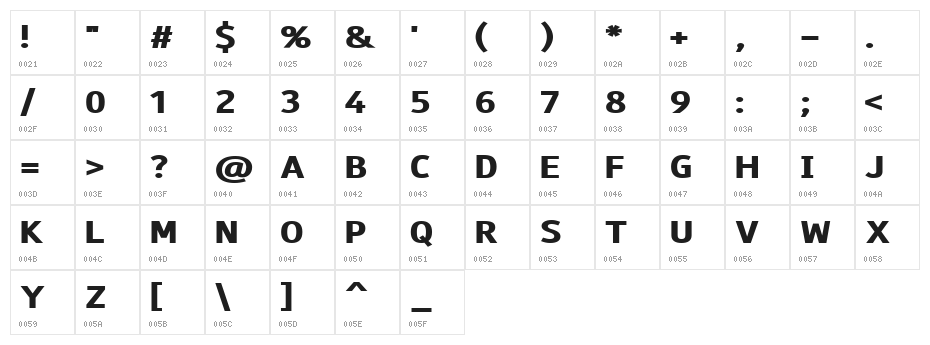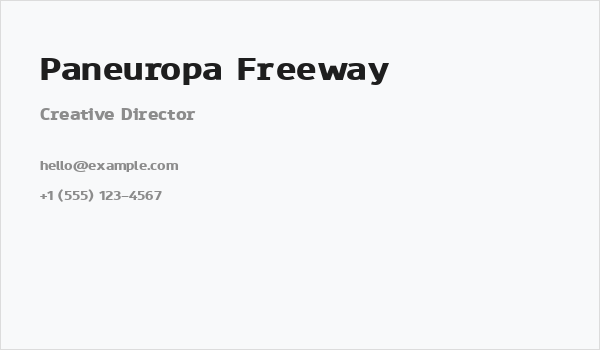
Paneuropa Freeway Font
Paneuropa Freeway Description
This font features a bold and assertive style with clean lines and a modern aesthetic. The uppercase letters are strong and impactful, making them ideal for headlines and attention-grabbing text. The lowercase letters maintain a consistent weight, providing a harmonious balance with the uppercase. The numerals are clear and easy to read, suitable for both digital and print formats. Special characters are well-defined, enhancing the font's versatility. The overall design is sleek and contemporary, with a slight geometric influence that adds to its appeal.
| Use Case | Headlines, Logos, Digital media |
| Proposed Projects | Ideal for branding, advertising, headlines, and digital media projects. |